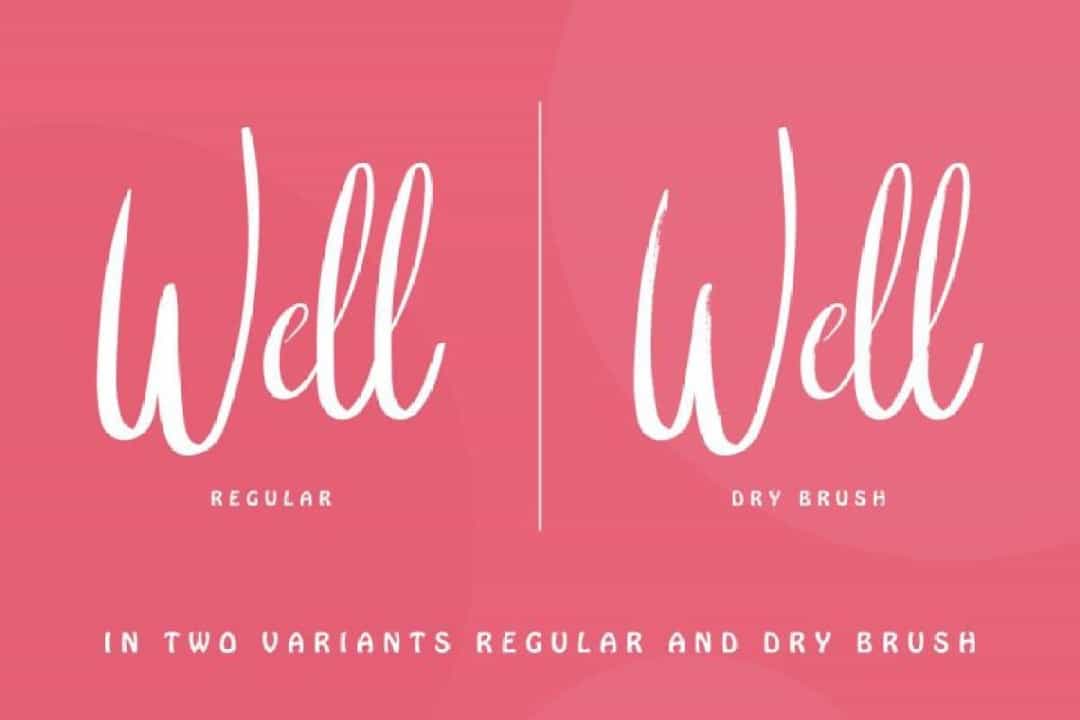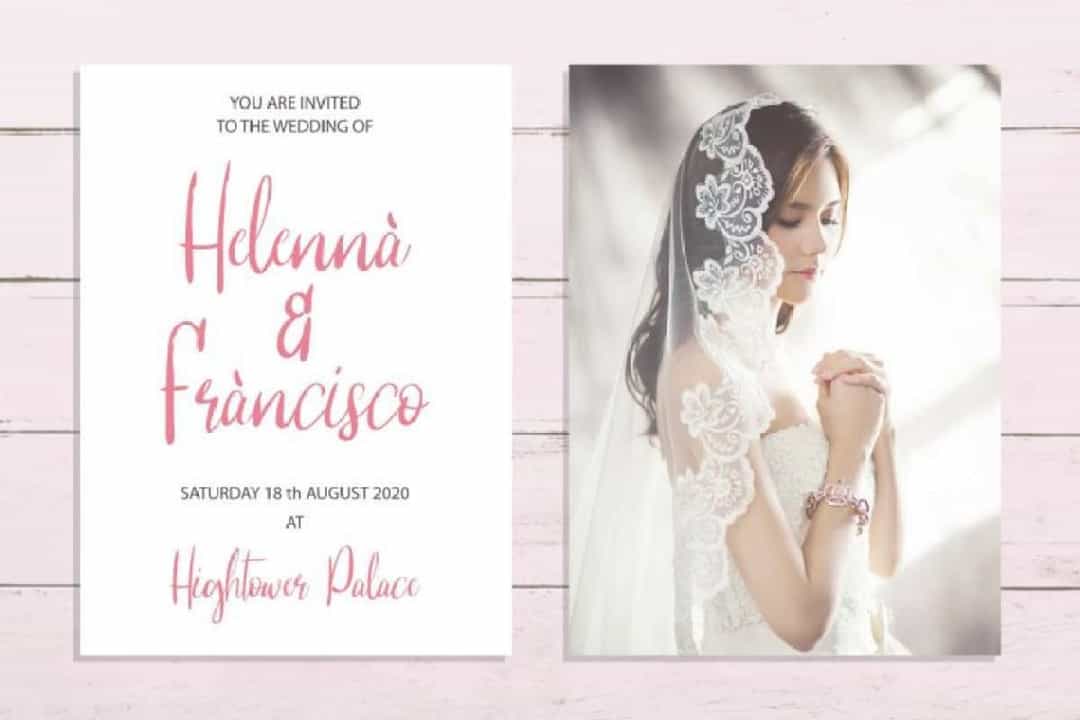
Since you are the one who developed Because Of You Font, it is a new decorative handwritten font with natural style. With its unique set of glyhps, you can make as many outstanding creative products/works as you want. Because Of You Font has two styles you can choose: The usual handwriting calligraphy and the textured brush characters are in this file. It will definitely be an absolute hit for branding, logo design, stationery, business card, signage, flyer and brochure.